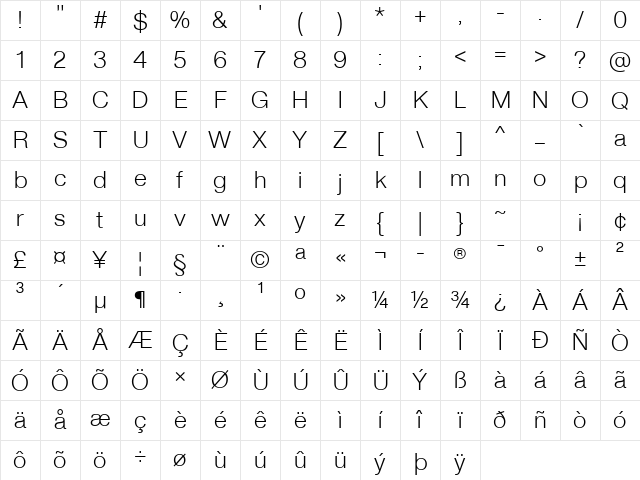
SemiLight Regular
Foundry: Monotype Imaging Inc.
Designer: Max Miedinger, Charles Nix, Monotype Studio, Jan Hendrik Weber
Design Context for SemiLight
SemiLight is a composed and adaptable typeface that performs quietly and consistently across a wide range of design contexts. Its slender proportions lend an understated elegance to any composition.